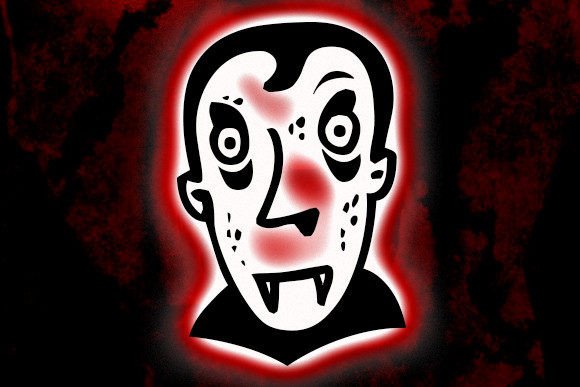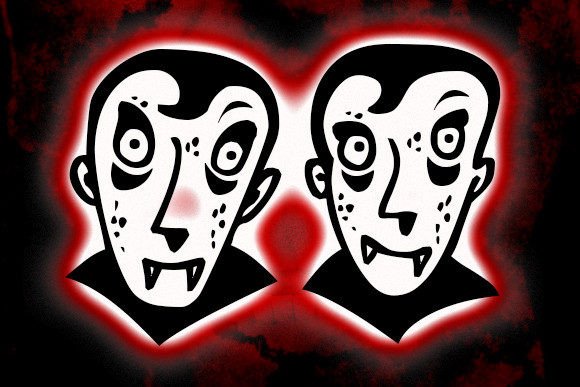
Introduction to Pierre the Vampire Font
Pierre the Vampire font features vampires in various poses and expressions.
They range from scary and menacing to cute and mischievous, perfect for adding a spooky touch to your designs .
Key Features of Pierre the Vampire Font
Why Choose Pierre the Vampire Font?
Pierre the Vampire Font offers exceptional quality and versatility, making it a valuable addition to your design toolkit. Whether you’re creating for personal projects or commercial use, Pierre the Vampire Font delivers professional results.